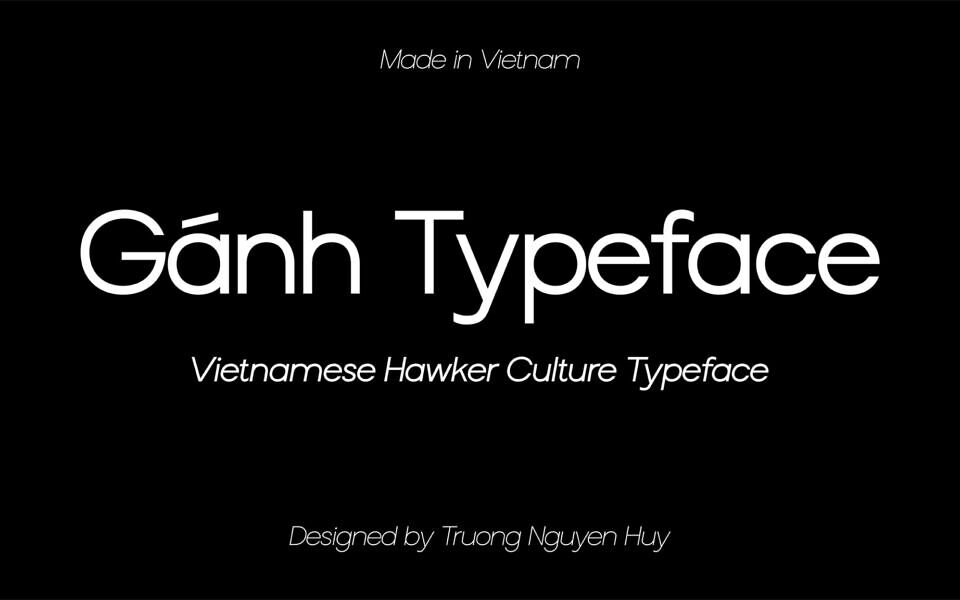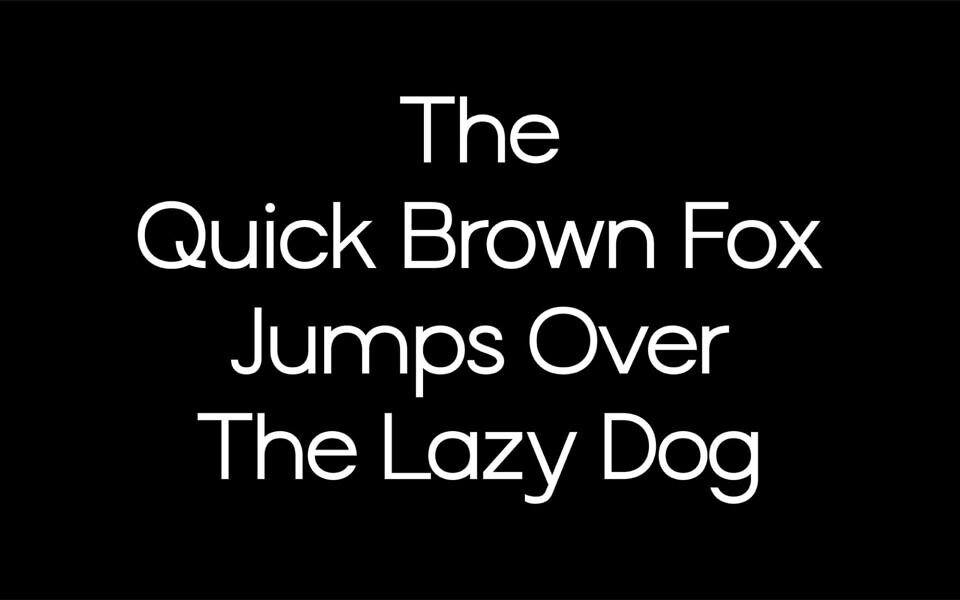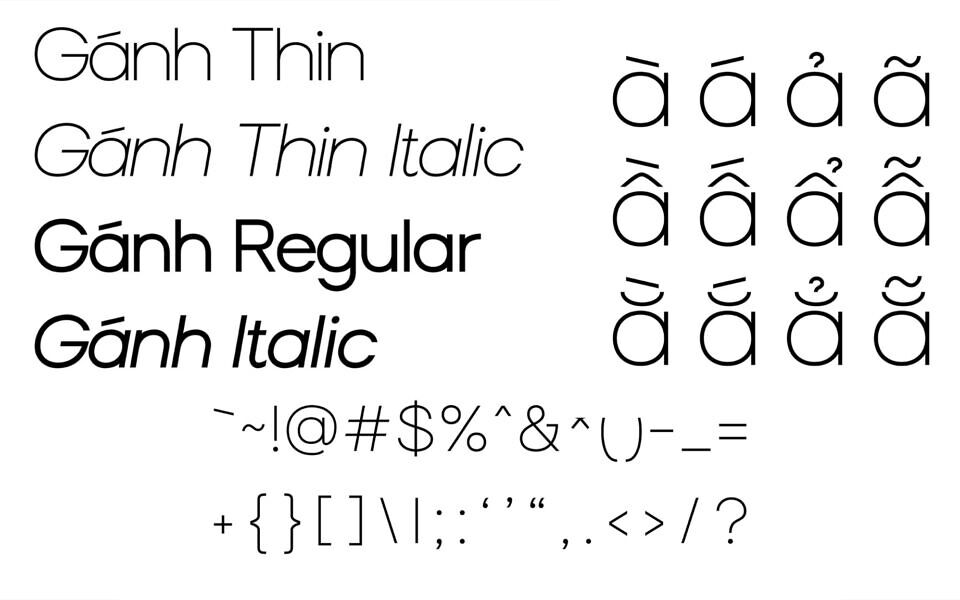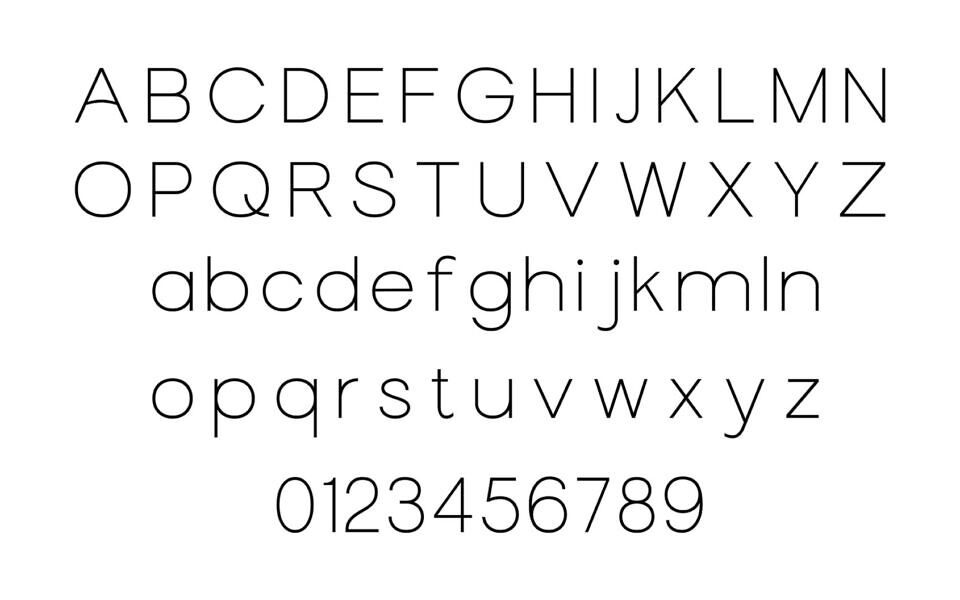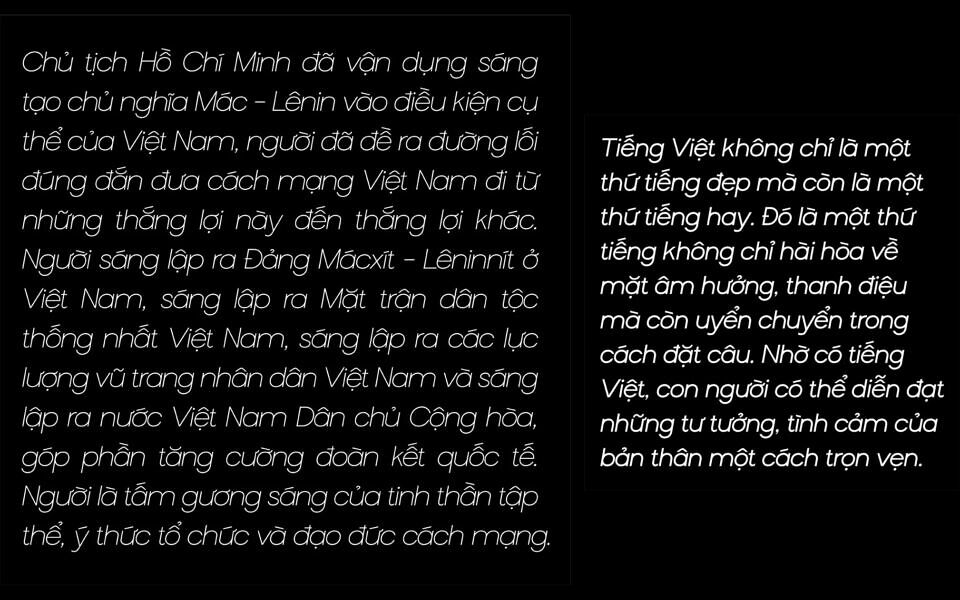
The street vendors are one of the cultural features of Vietnam. Women with their carrying poles on their shoulders, hustling through every street. The street vendor’s load is not only a means of livelihood but also a symbol of patience, diligence, and family love. This image has become an inseparable part of the lives of the Vietnamese people.
The “Gánh” typeface is designed based on the distinctive features of the image of street vendors in Vietnam. Additionally, the shape of the typeface are developed from a circle, with a large x-height that ensures a comfortable reading experience.
Ganh Family includes Thin, Thin Italic, Regular, Regular Italic.